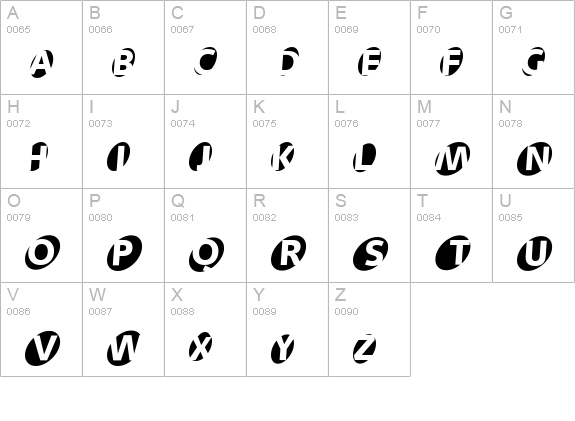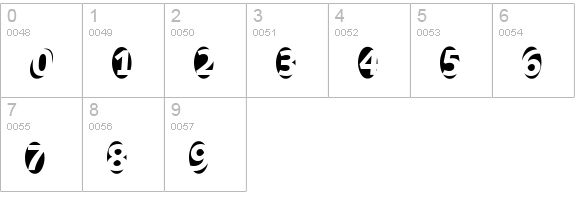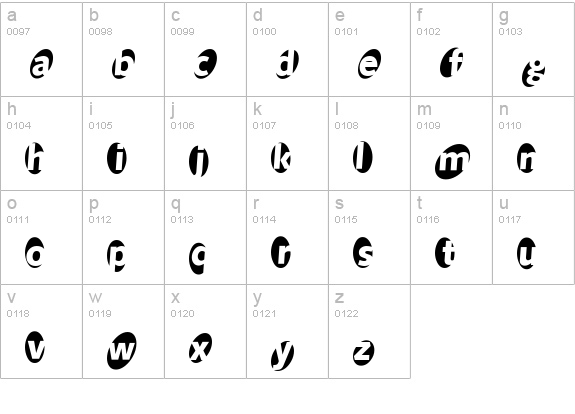
AidaOops Font Details
AidaOops font is a whimsical and playful typeface that exudes charm and character. With its unique design and quirky letter shapes, AidaOops adds a touch of fun to any project. This font is perfect for creating eye-catching headlines, posters, invitations, and more. Whether you're looking to add a touch of personality to your designs or simply want to stand out from the crowd, AidaOops is the perfect choice. The best part? AidaOops font is completely free to download at FontsMarket.com. You can easily add this delightful font to your collection and start using it in your projects right away. Don't miss out on the opportunity to bring a sense of whimsy and creativity to your designs with AidaOops font. Download it today and let your imagination run wild!